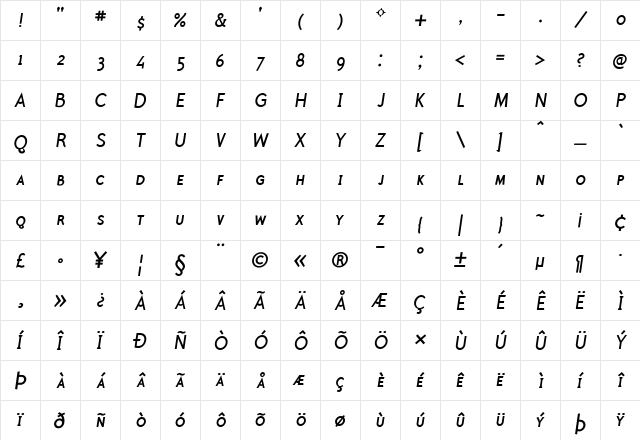
Polymer Caps-Medium Medium Italic
Design Context for Polymer Caps-Medium Typeface
Polymer Caps-Medium takes a measured approach to typography — its balanced proportions and neutral character make it a reliable workhorse for both digital and print work. The dynamic lean of this cut emphasises speed and emphasis in any layout.
Pro Tip: Use Polymer Caps-Medium for emphasis, pull quotes, and subheadings where its slanted energy can add rhythm to the layout.